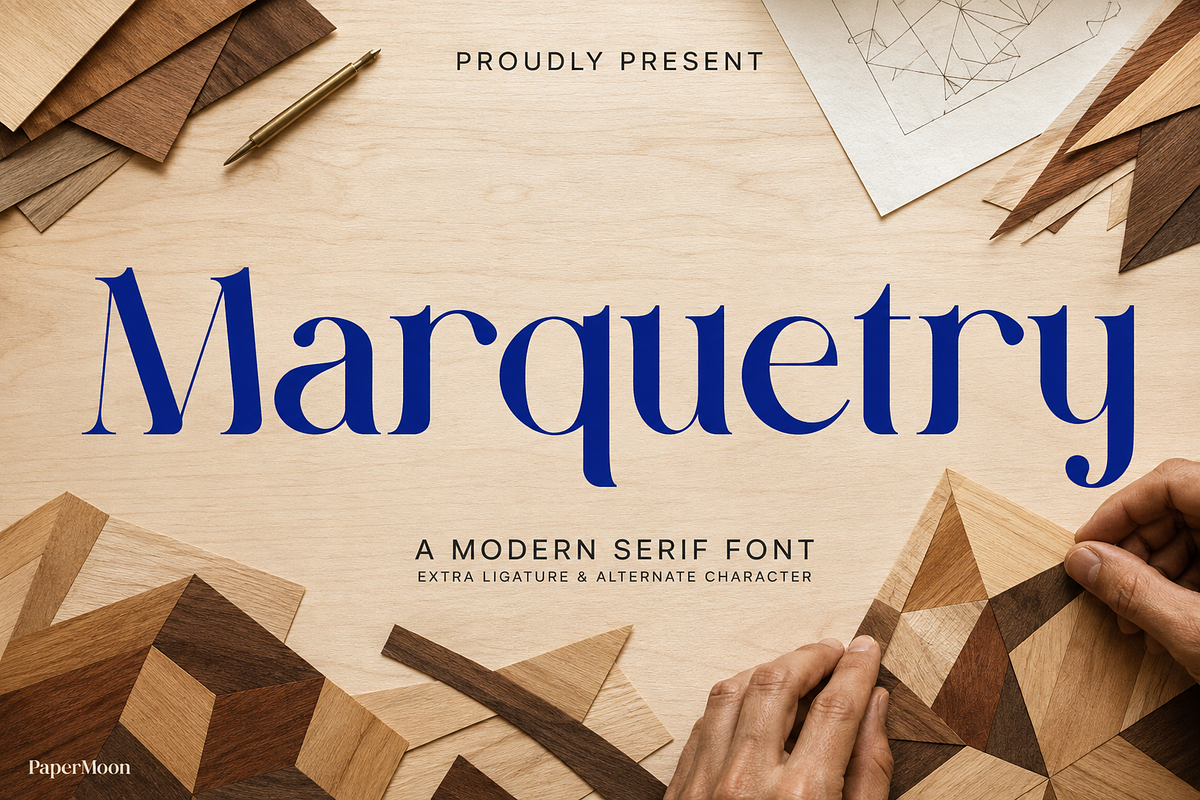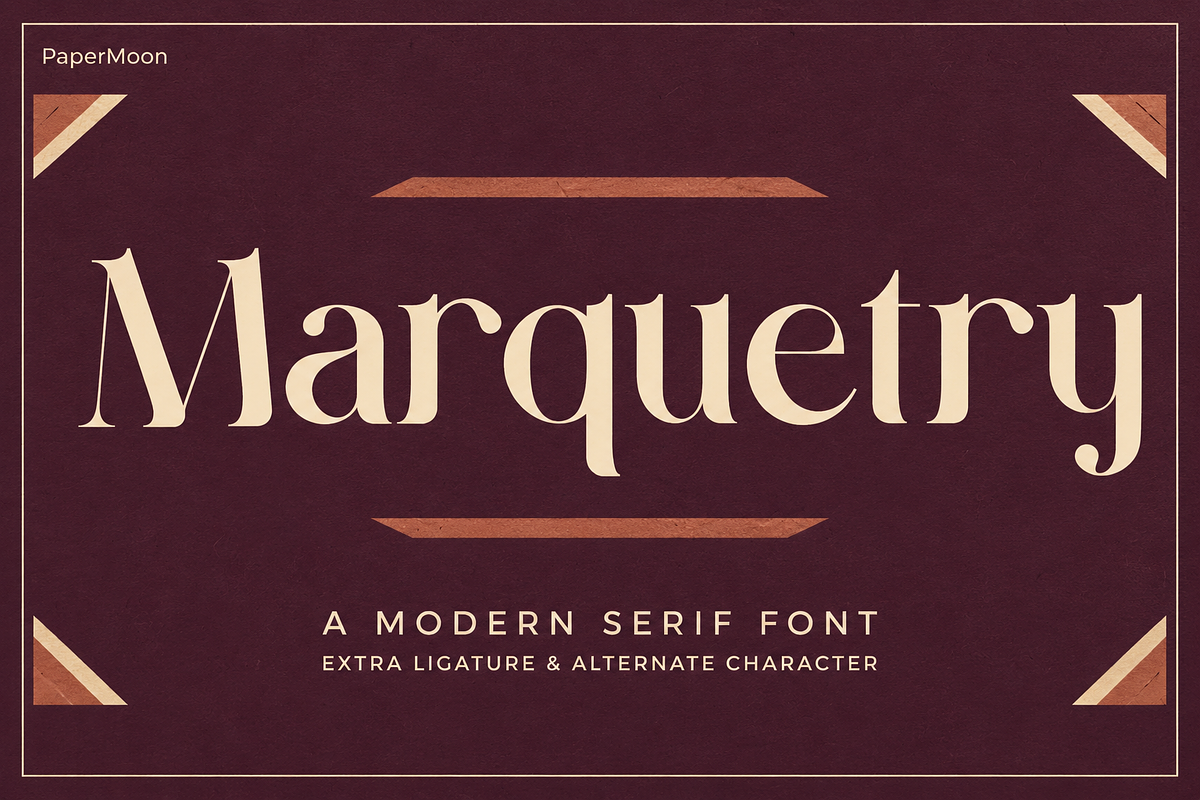
MARQUETRY - Modern Serif Duo
MARQUETRY is a modern serif duo with expressive Regular and Italic styles, shaped for polished logos, editorial titles, packaging, and other display-size typography that needs presence without losing refinement.
The coordinated upright and slanted styles let you create contrast within one visual system. Use Regular for confident brand names and headlines, then bring in Italic for emphasis, quotes, captions, invitations, and graceful secondary text. Its character works equally well for a boutique label, a premium homeware line, a book cover, or a campaign with a more elevated tone.
2 coordinated styles: MARQUETRY Regular and MARQUETRY Italic give you a flexible display pairing.
276 glyphs per style: Each style includes 279 mapped characters for a substantial Western Latin character set.
OpenType features: Standard ligatures (liga), stylistic alternates (salt), and kerning (kern) help you refine letter combinations in compatible apps.
MARQUETRY is built for logos, branding systems, product packaging, shopping bags, mugs, T-shirts, labels, posters, quotes, photography, watermarks, business cards, invitations, greeting cards, special events, and luxury projects. It is especially effective when a short phrase, name, or headline needs to carry the visual identity.
The character set covers Basic Latin, Latin-1 characters and accents, plus seven Latin Extended characters. Cyrillic and Greek are not included. For best results, use a compatible application with OpenType controls enabled when you want to access the available ligatures and stylistic alternates.